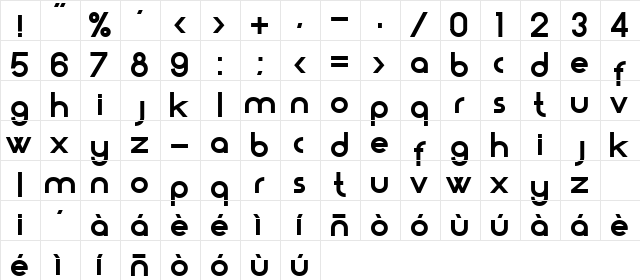
ZARAUTZ SPECIAL Bold
Design Context for ZARAUTZ SPECIAL Typeface
ZARAUTZ SPECIAL takes a measured approach to typography — its balanced proportions and neutral character make it a reliable workhorse for both digital and print work. Its bold stroke weight gives it real presence on the page.